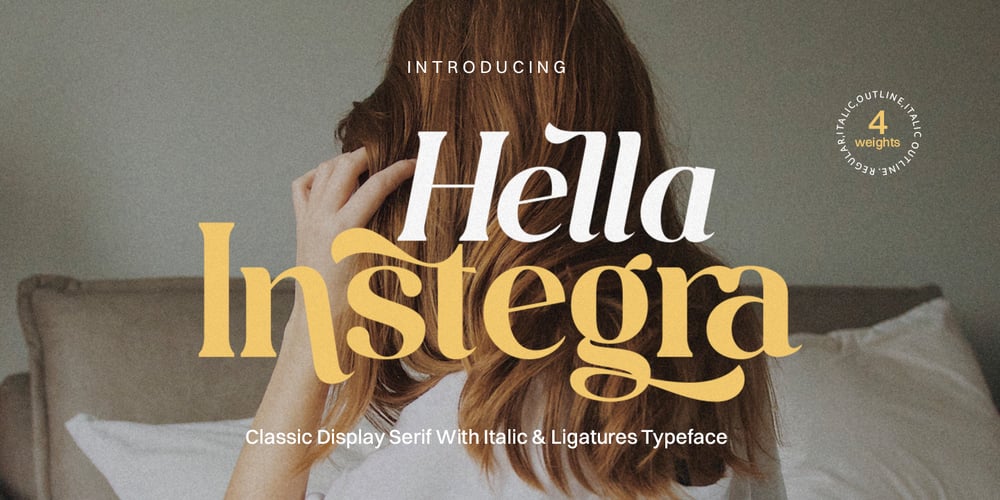
Hella Instegra
Hella Instegra font
Hella Instegra Font Family was designed by Fajarisha Phonna and published by Skypia. Hella Instegra contains 4 styles and family package options. Start good day for new font! present to you, Hella Instegra!Hella Instegra is a stylish font It has both modern and retro look – clear, modern and fun. Helps to create layout design in 60s or 70s design projects.This font have more than 150 unique alternate and 59 ligature that to give your logo,business card and another project to a unique vintage look. It has Italic and Outline version too so what a perfect vintage font!Hella Instegra is also included full set of: uppercase and lowercase letters multilingual symbols numerals punctuation Alternates PUA Encoded Unique letterforms I really hope you’ll get pleasure using Hella Instegra font and it will be perfect addition to your font collection! If you have some questions, please write me a letter!Thank You Skypia.